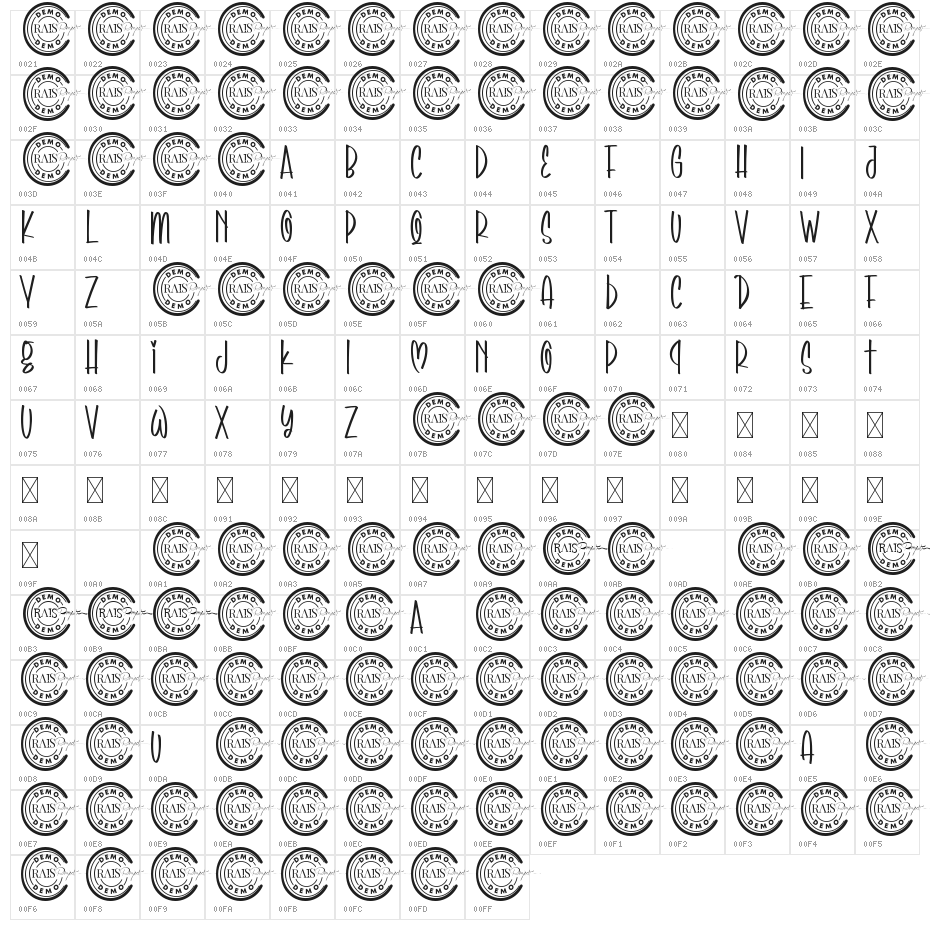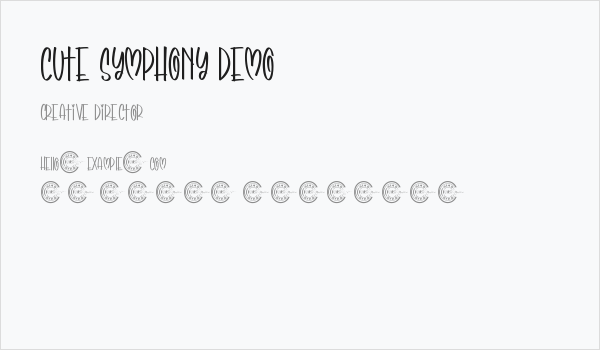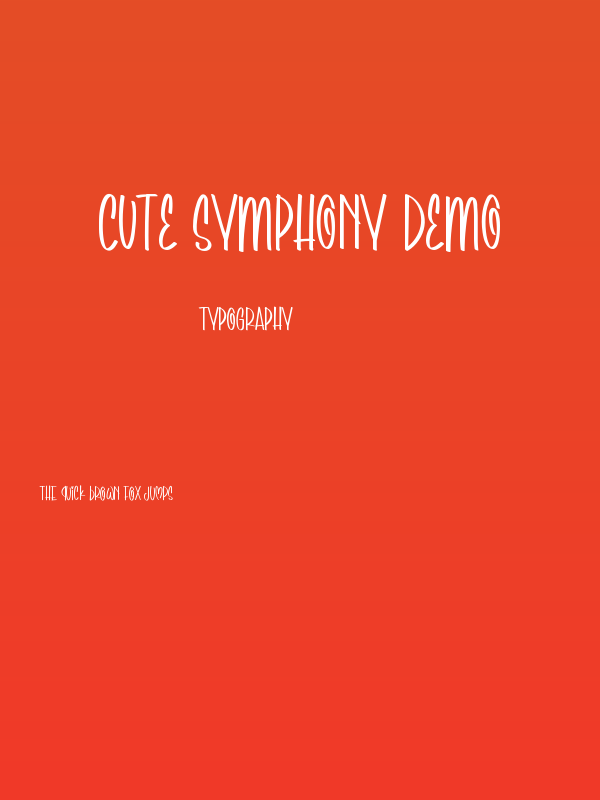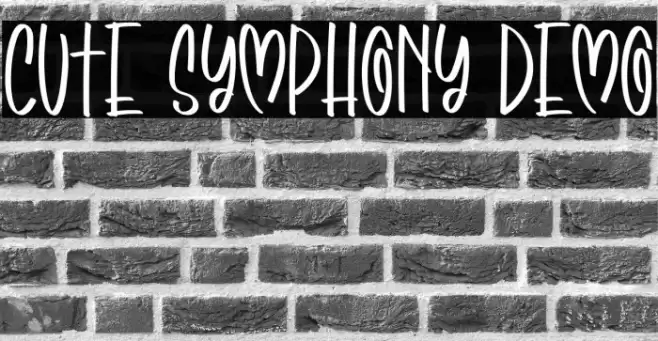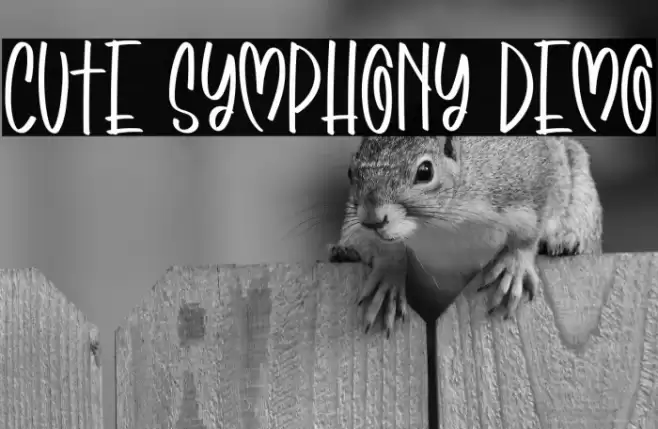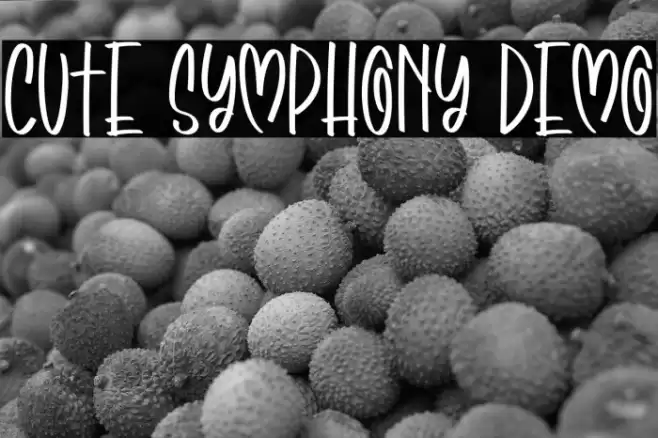
Cute Symphony Demo Font
Cute Symphony Demo Description
Playful, handwritten style font with tall, narrow characters and a casual, whimsical appearance.
| Overall Style | Casual, Playful, Whimsical |
| Use Case | Headlines, Children's books, Creative projects, Logos, Posters |